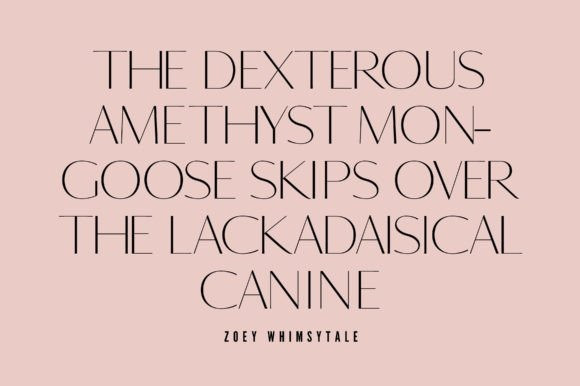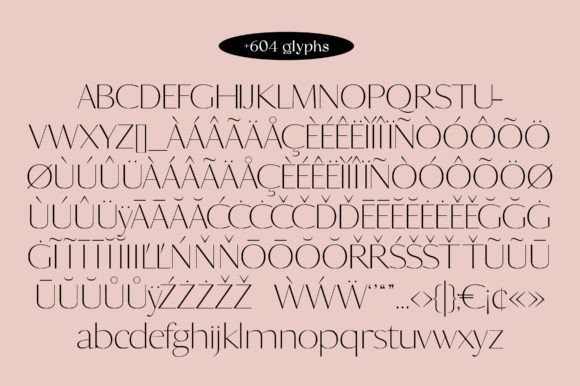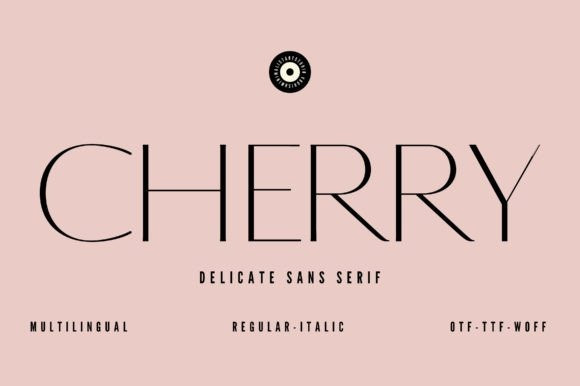
Cherry Font
Cherry Font – Where Modern Simplicity Meets Timeless Elegance! Elevate your design projects with the exquisite charm of our newest creation, the “Cherry” sans-serif typeface. Unveil a world of minimalist sophistication as Cherry effortlessly marries delicate strokes with chic, contemporary aesthetics.
Crafted with meticulous attention to detail, Cherry’s sleek and slender letterforms evoke a sense of refined modernity. Its clean lines and subtle curves encapsulate a harmony that adapts seamlessly to any creative endeavor, from branding and logos to editorial layouts and web designs.
In a world where less is more, Cherry stands as the epitome of simplicity’s power to captivate. The absence of decorative elements allows its timeless beauty to shine through, making it an ideal choice for those who crave a touch of elegance in their projects. With Cherry, your designs will effortlessly bridge the gap between classic grace and contemporary flair.
Whether you’re a seasoned designer or just embarking on your creative journey, Cherry empowers you to make a statement that’s both bold and understated. Its versatility knows no bounds – from corporate settings to personal ventures, Cherry will become your ultimate tool for expressing sophistication.
Transform your creations into works of art that resonate with the essence of modern design. Choose Cherry today and unlock a world of minimalist, delicate, chic, and modern possibilities that will leave a lasting impression on all who encounter it.